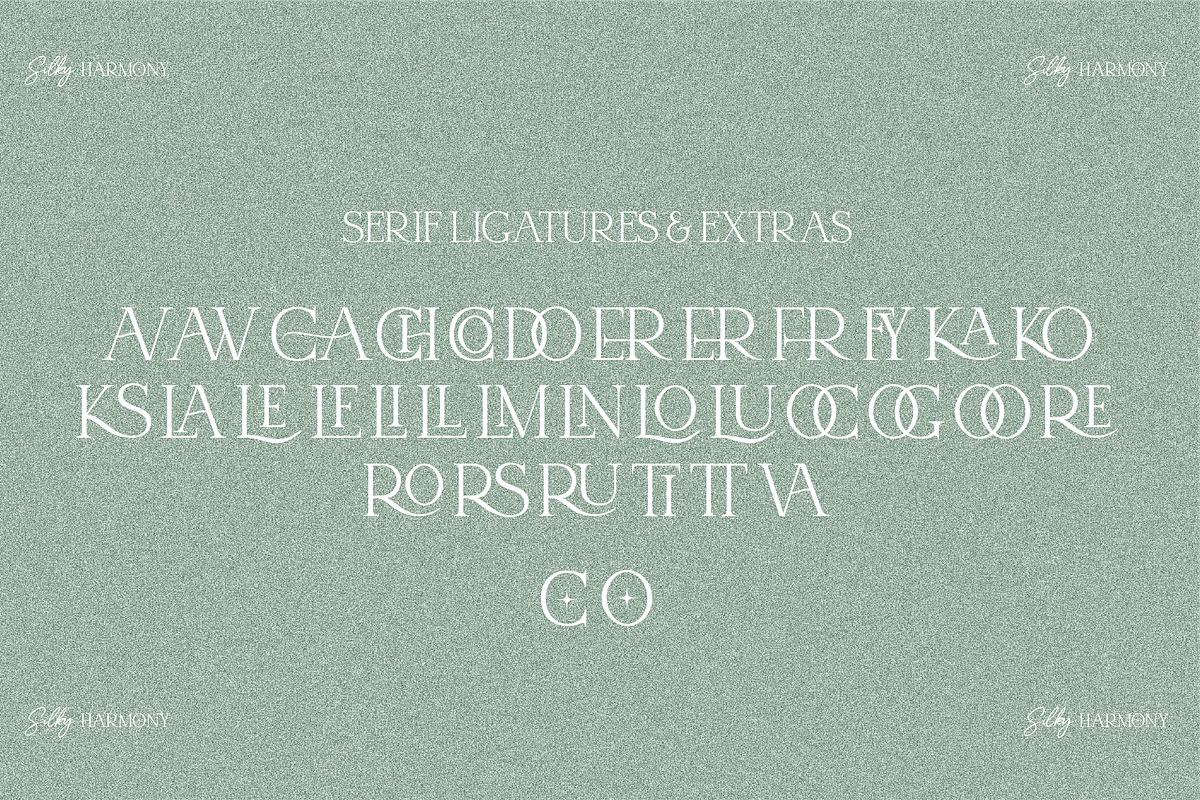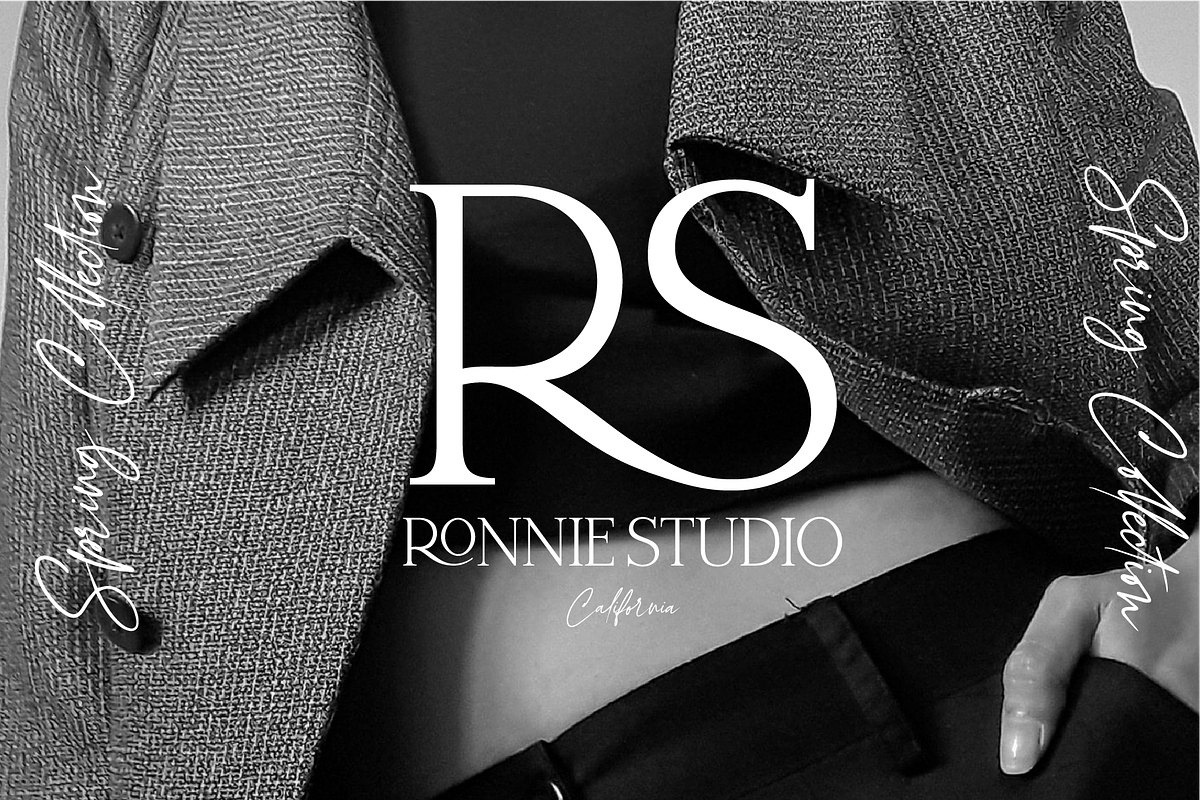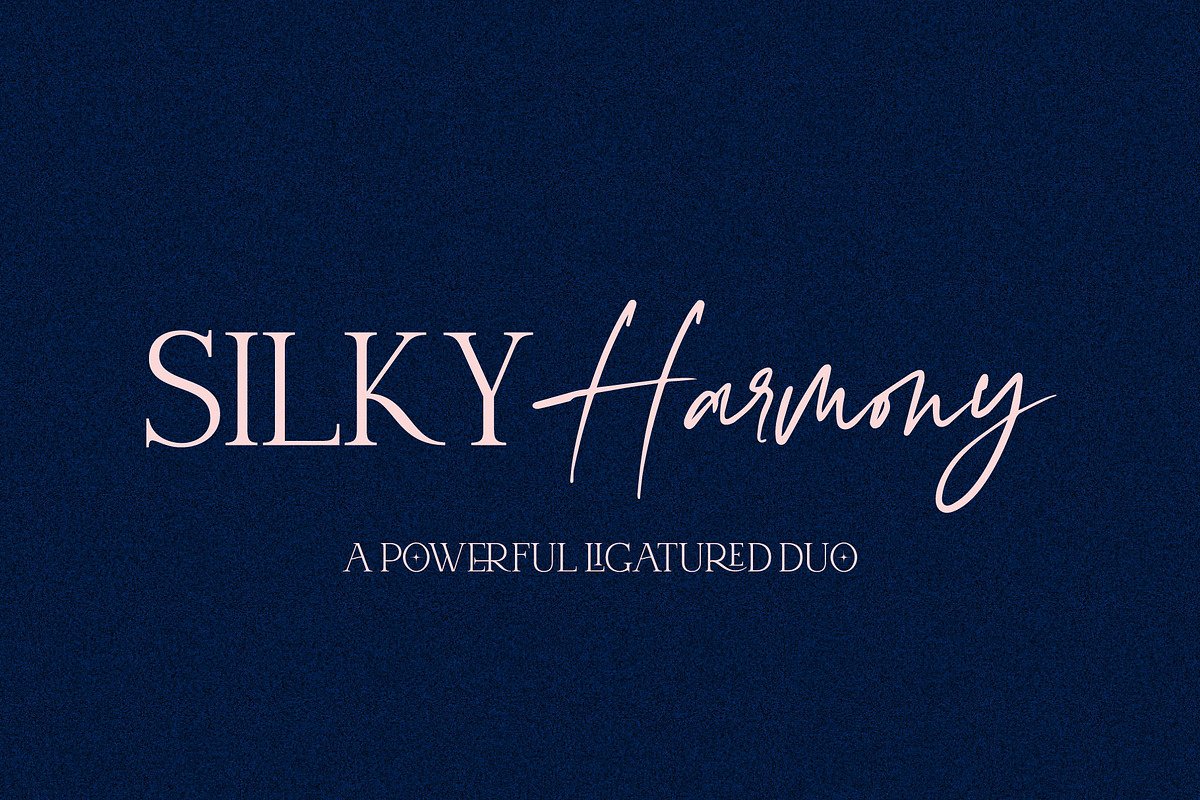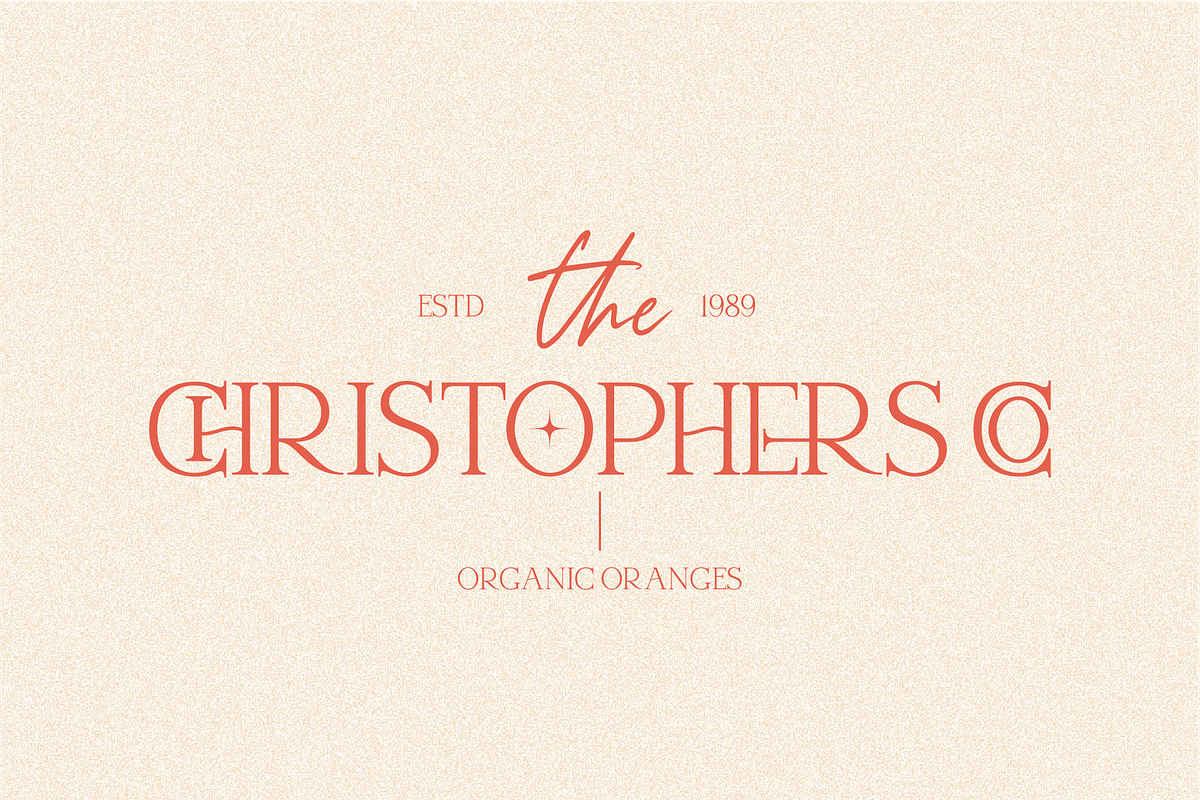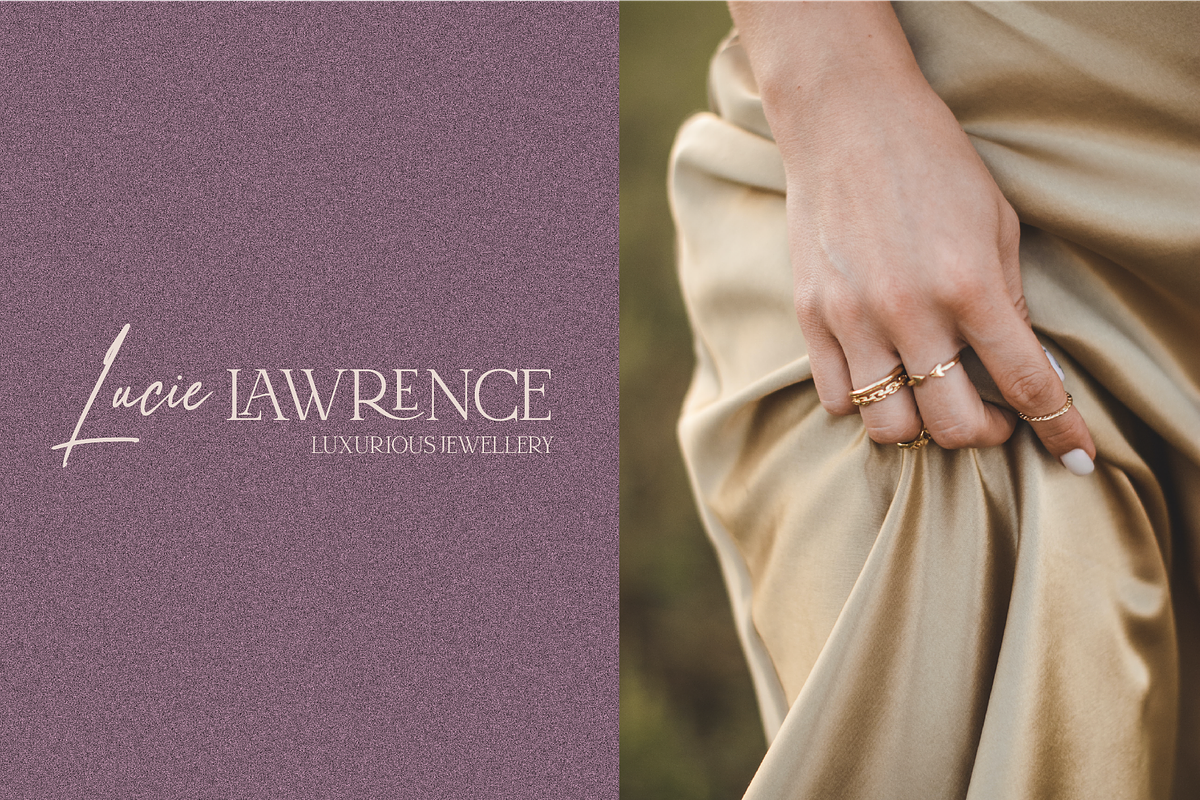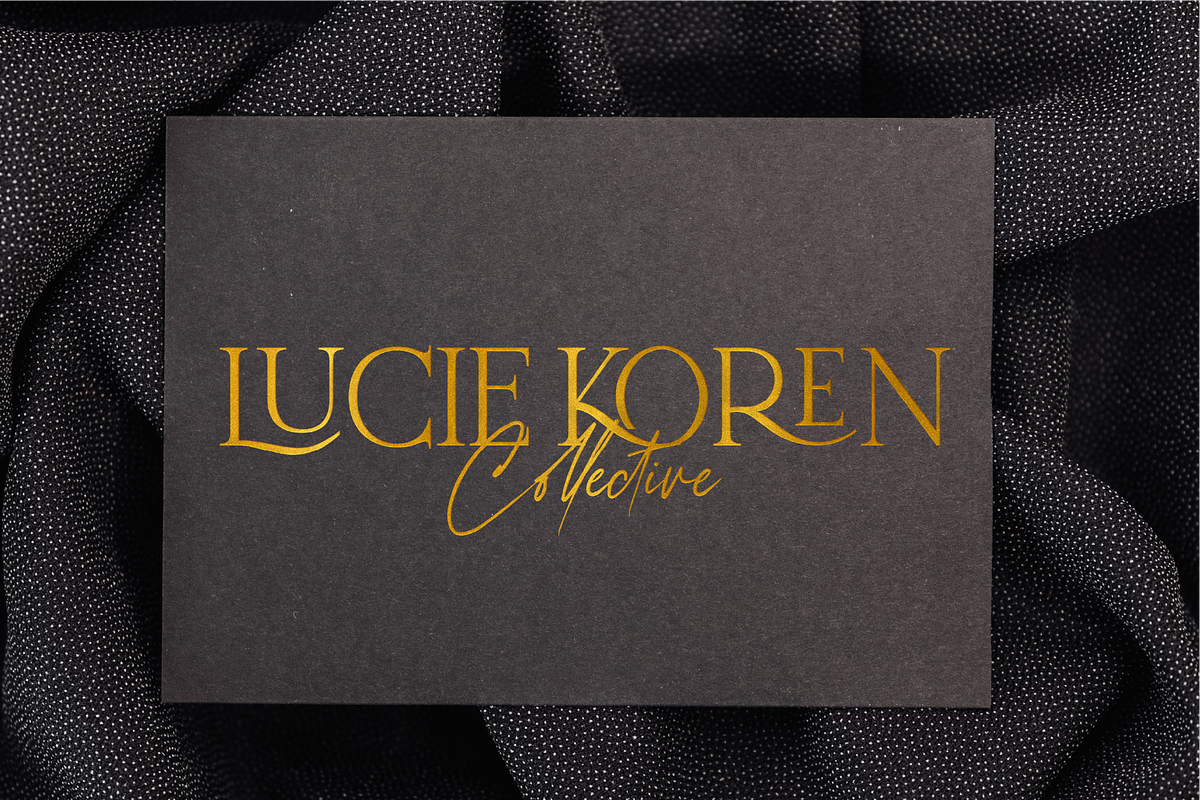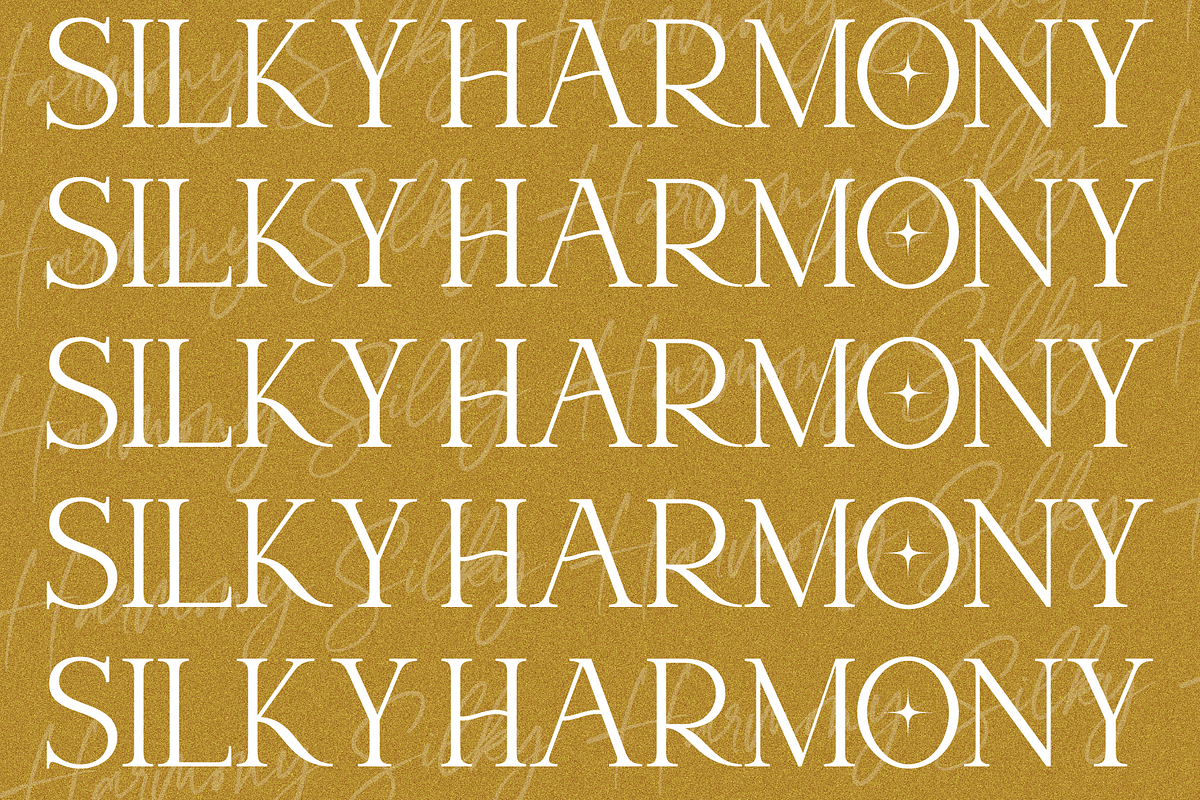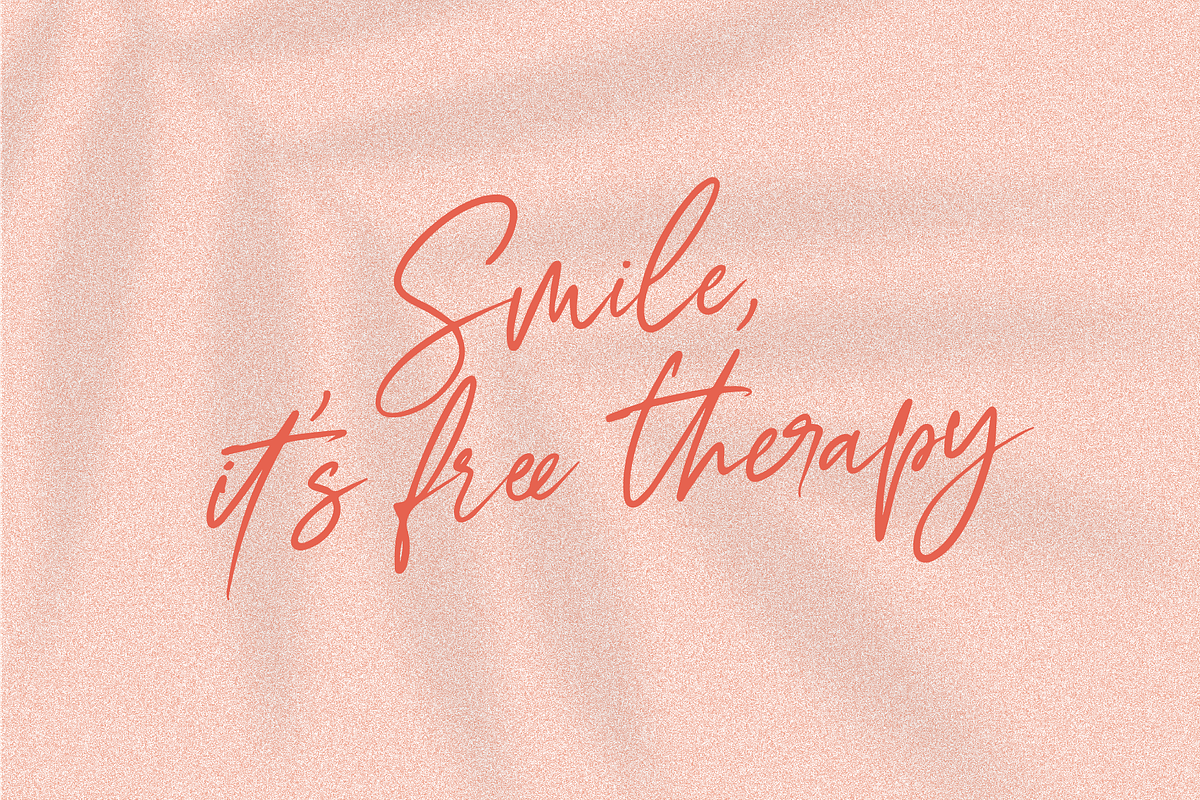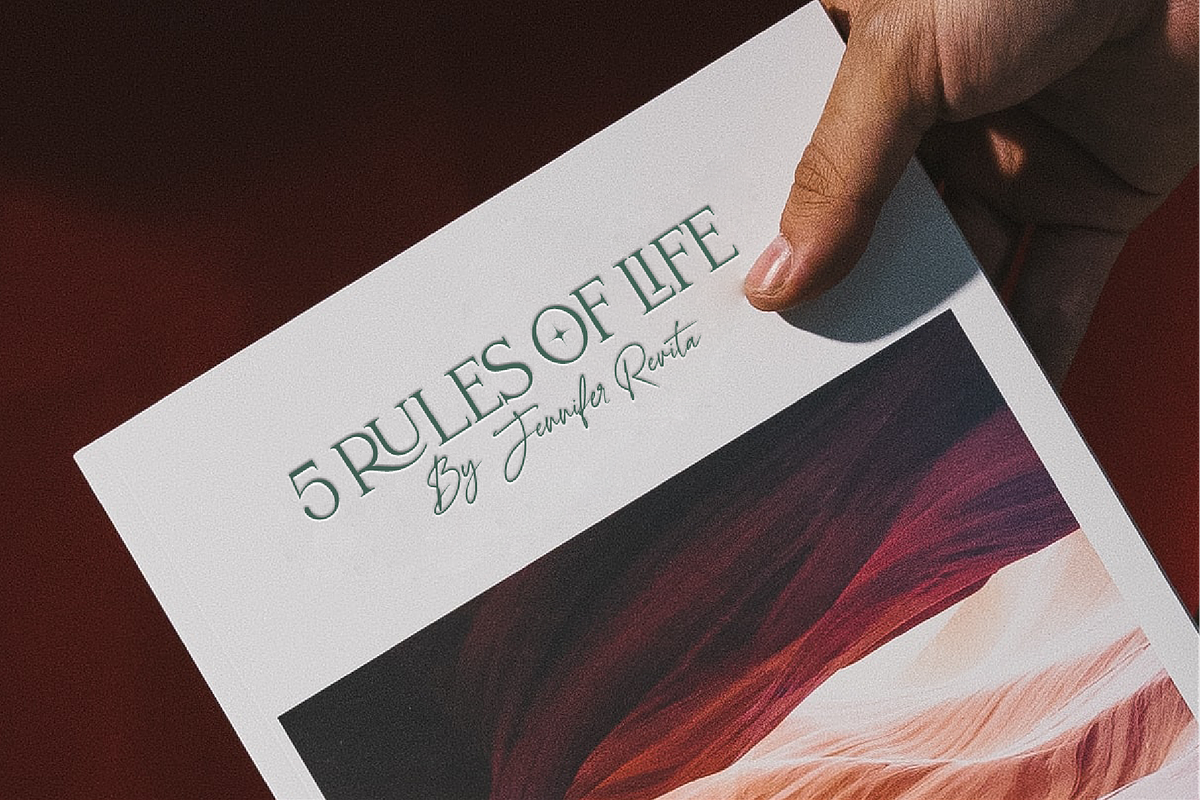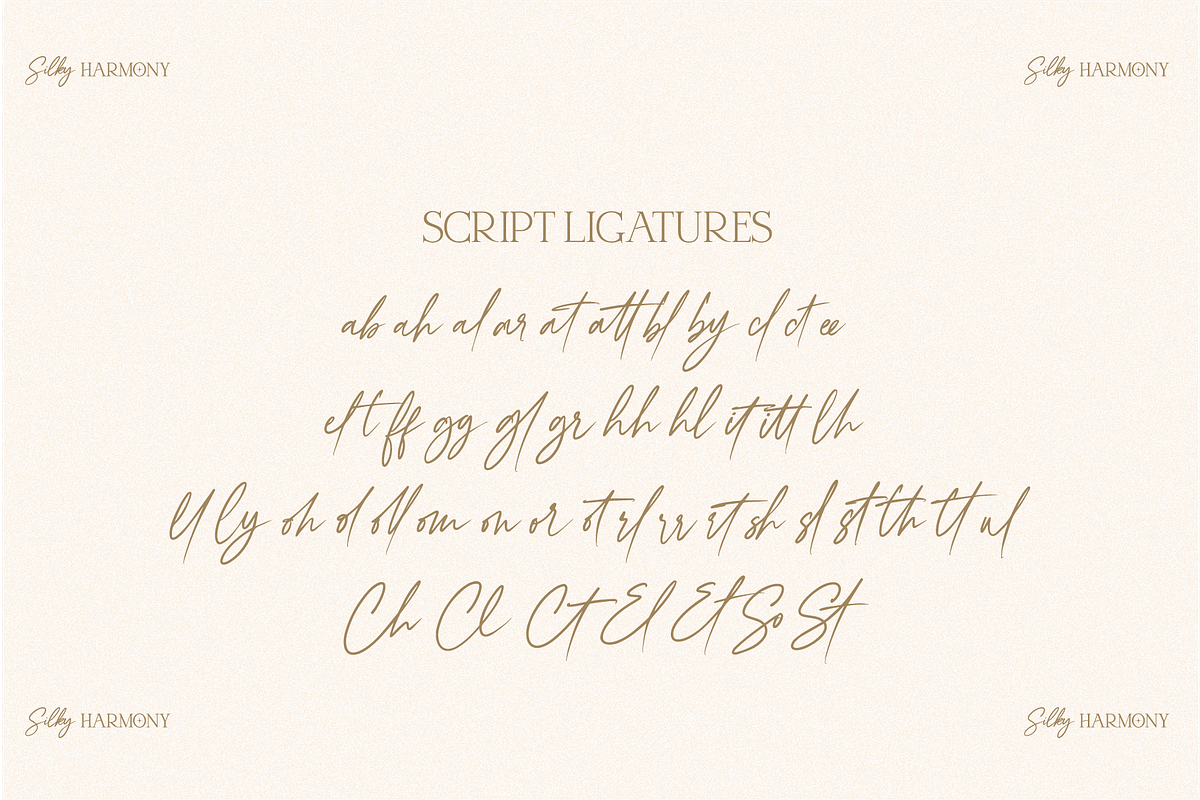
Silky Harmony
Silky Harmony is a refined and sophisticated font duo that effortlessly blends luxury with contemporary elegance. Designed to elevate your creative projects, this powerful pairing is perfect for modern branding, editorial design, high-end packaging, and beyond.
With its graceful curves and versatile style, Silky Harmony brings a distinctive, upscale character to every design. The serif font exudes confidence and elegance, while the script adds a personal, flowing touch—together, they create harmony in both form and function.
OpenType Features Silky Harmony is fully equipped with advanced OpenType features, offering a wealth of stylistic alternates and decorative characters. These can be accessed through OpenType-compatible software, allowing you to personalize your typography with ease.
Perfect for Designers Whether you're crafting logos, building a brand identity, designing book covers or invitations, Silky Harmony offers the flexibility and flair to set your work apart. The elegant alternates in the serif font can completely transform a design, adding that signature, high-end finish.